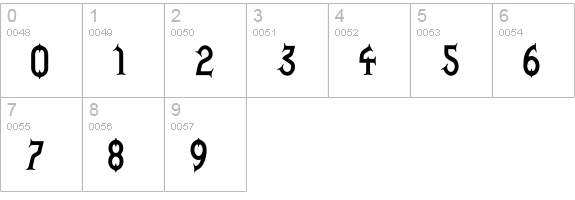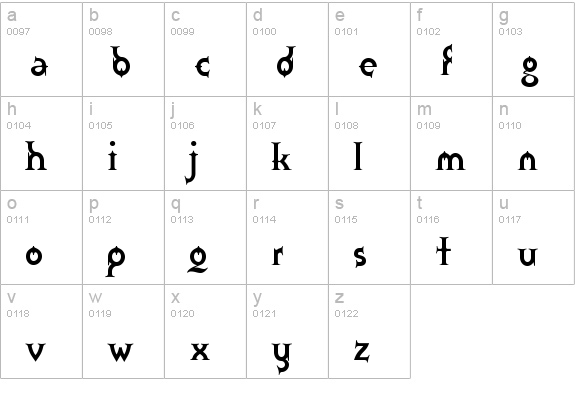
Zoroaster-Bold is a strong, high-contrast variant in the Zoroaster typeface family \xE2\x80\x94 well suited to headlines, attention-grabbing titles, and strong calls-to-action.
Zoroaster-Bold font is a striking and modern typeface that exudes confidence and sophistication. With its bold and commanding presence, this font is perfect for making a statement in any design project. The strong, thick lines of Zoroaster-Bold demand attention and add a touch of elegance to any text. Whether you're creating a logo, poster, or website, this font will surely leave a lasting impression. What's even better is that Zoroaster-Bold is available for free download at FontsMarket.com. You can easily access this high-quality font and enhance your designs without any cost. Don't miss out on the opportunity to elevate your projects with the impactful Zoroaster-Bold font - download it now and let your creativity shine!